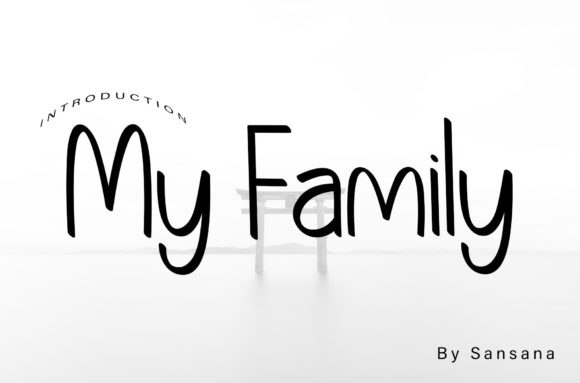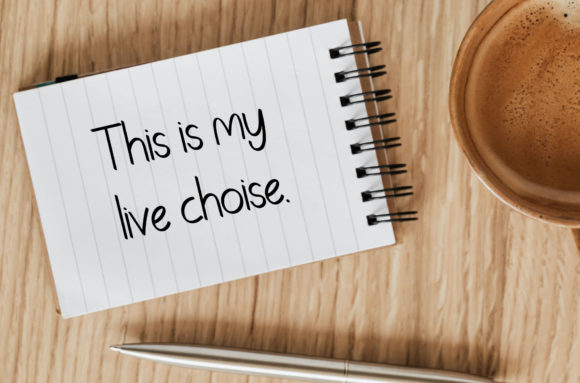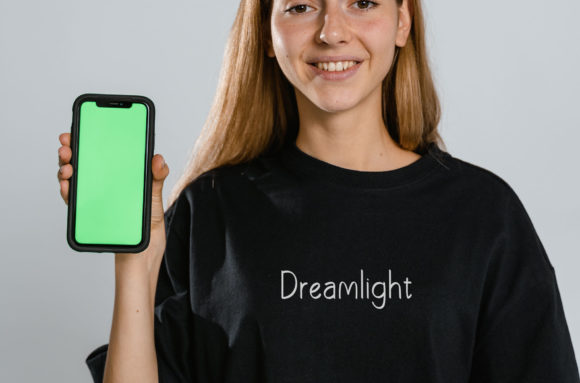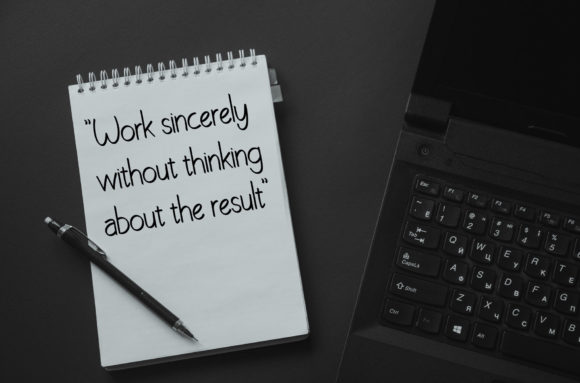
About My Family Font
“My Family” is a delicate and graceful script font that captures attention with its subtle and refined style. Its thin letterforms add an air of elegance and sophistication, making it an ideal choice for a variety of design projects.
Imagine using “My Family” for wedding invitations. The font’s understated yet stylish appearance creates a sense of intimacy and romance, setting the tone for a memorable and special event. The thin lettering adds a touch of delicacy, complementing the aesthetic of a wedding invitation suite and conveying a sense of timeless beauty.
For stationary art, “My Family” adds a touch of artistic flair. The font’s simplicity and clean lines create a harmonious and balanced look, making it a perfect choice for personalized stationery, art prints, and greeting cards. Whether it’s a heartfelt note or a beautifully crafted piece of art, “My Family” enhances the visual appeal and creates a lasting impression.
On social media, “My Family” stands out with its eye-catching style. The thin lettering adds a touch of sophistication to inspirational quotes, lifestyle images, and promotional posts. Its versatility allows it to seamlessly integrate into various design themes, helping to create a consistent and visually appealing social media presence.
In branding and logo design, “My Family” offers a modern and sleek appearance. The font’s clean and thin lines create a sense of minimalism and professionalism, making it a suitable choice for businesses and brands that aim to convey a contemporary and refined image. Whether it’s on business cards, packaging, or digital marketing materials, the font adds a touch of elegance to the brand’s identity.
The versatility of “My Family” extends to editorial design as well. The font’s simplicity and legibility make it an excellent choice for magazine titles, article headings, and layout elements. Its thin lettering adds a subtle yet impactful visual element, contributing to a polished and well-designed layout.
In summary, “My Family” is a thin-lettered and simple script font that brings a touch of elegance and refinement to a variety of design projects. Its versatility makes it suitable for wedding invitations, stationary art, social media posts, branding, and editorial design. With its ravishing style and ability to enhance visual appeal, “My Family” is a valuable asset for designers seeking to create captivating and memorable designs.